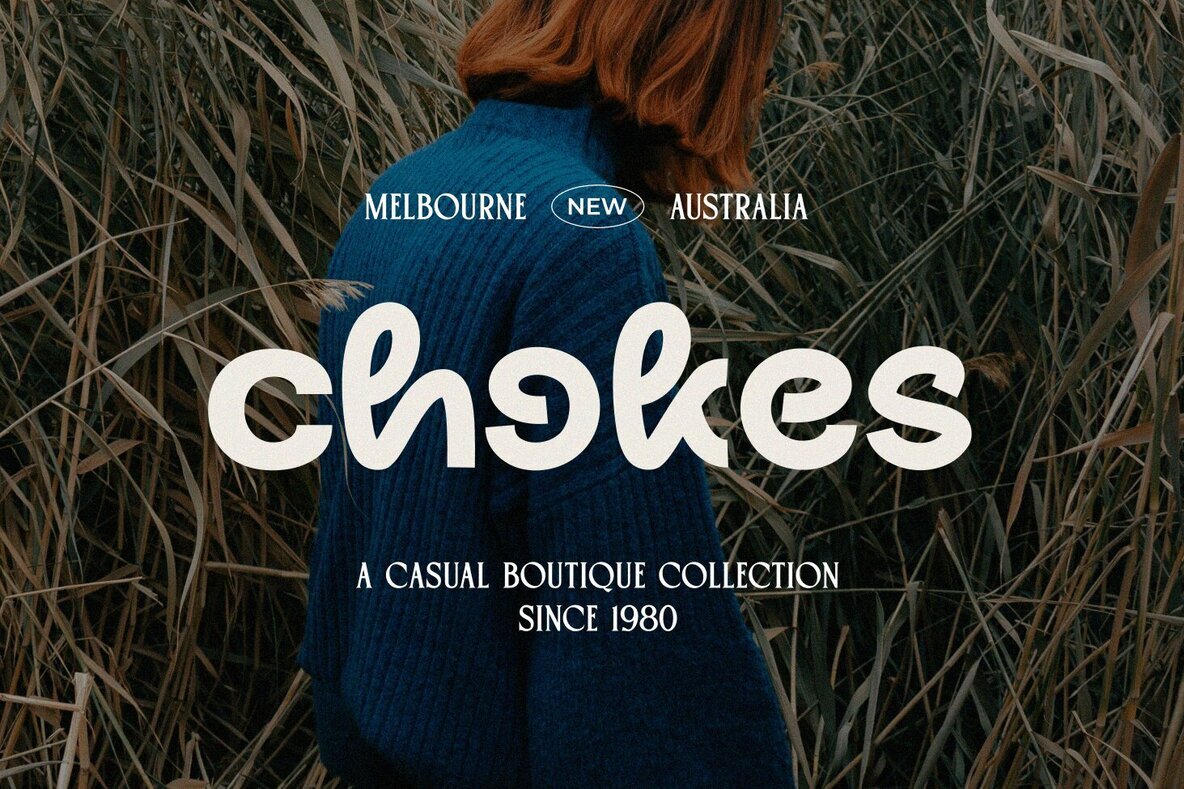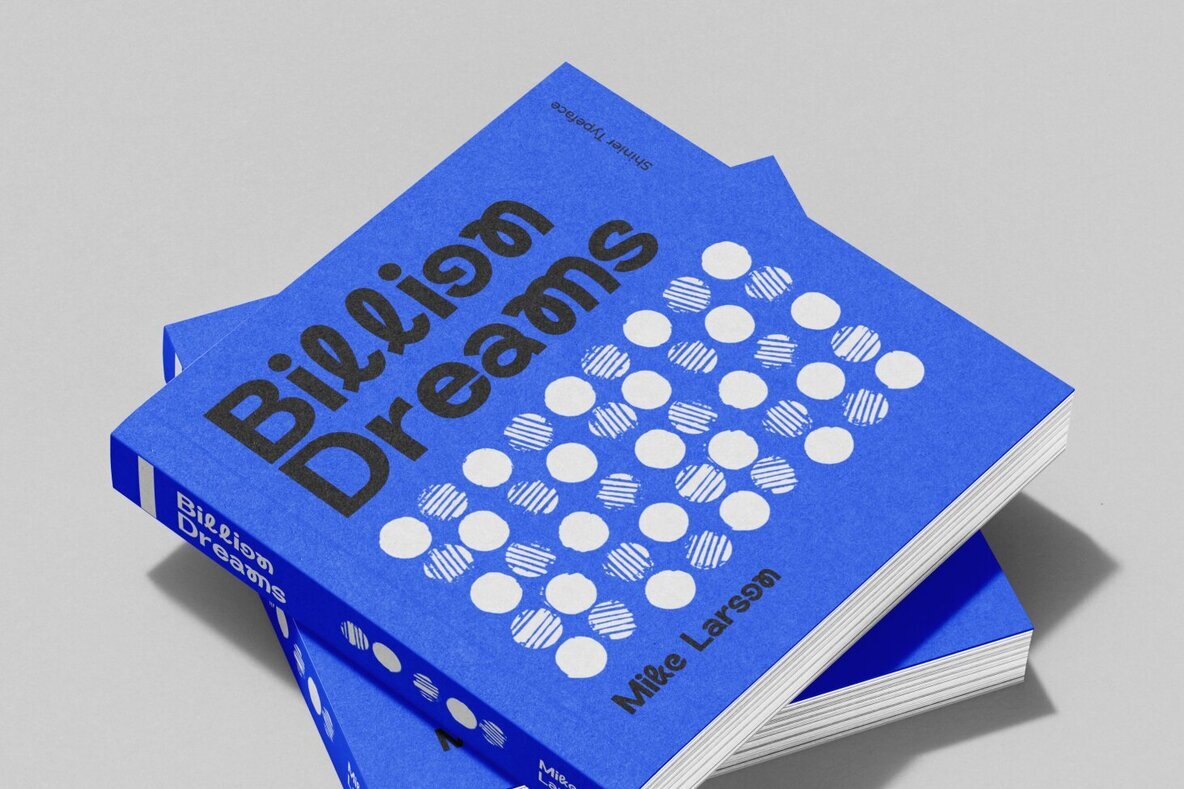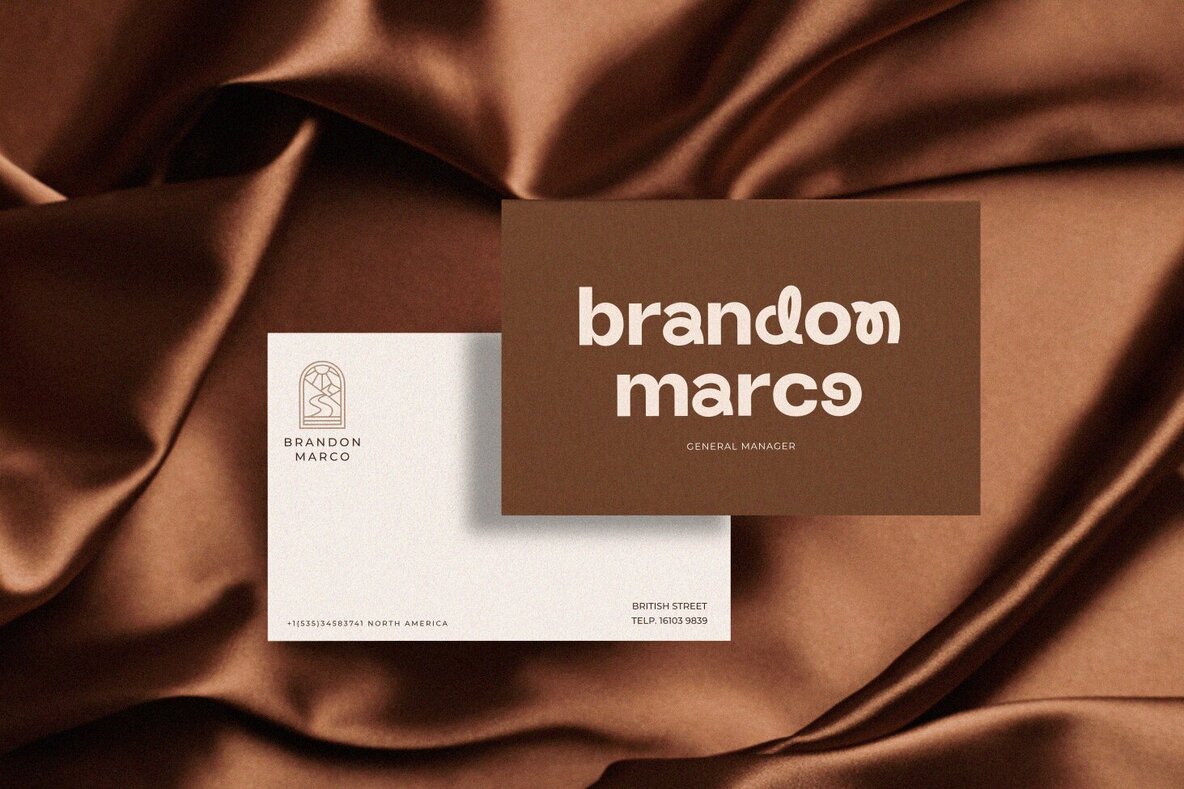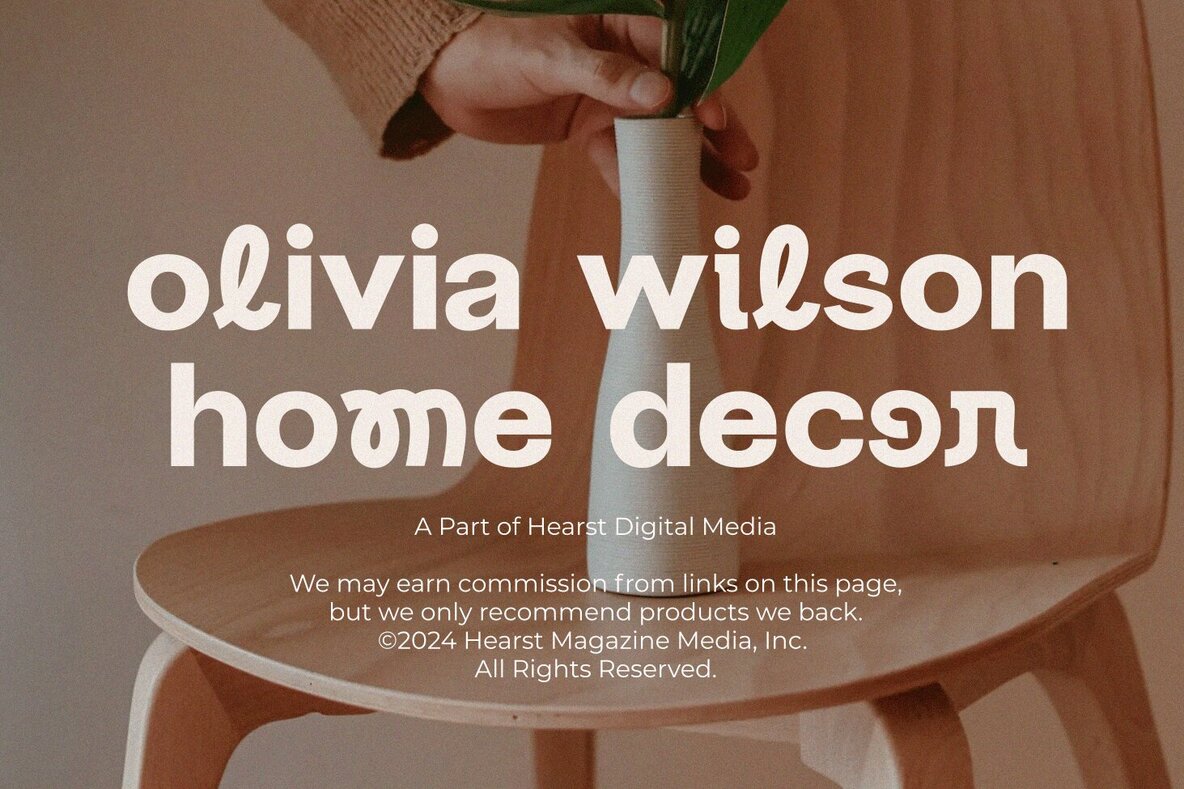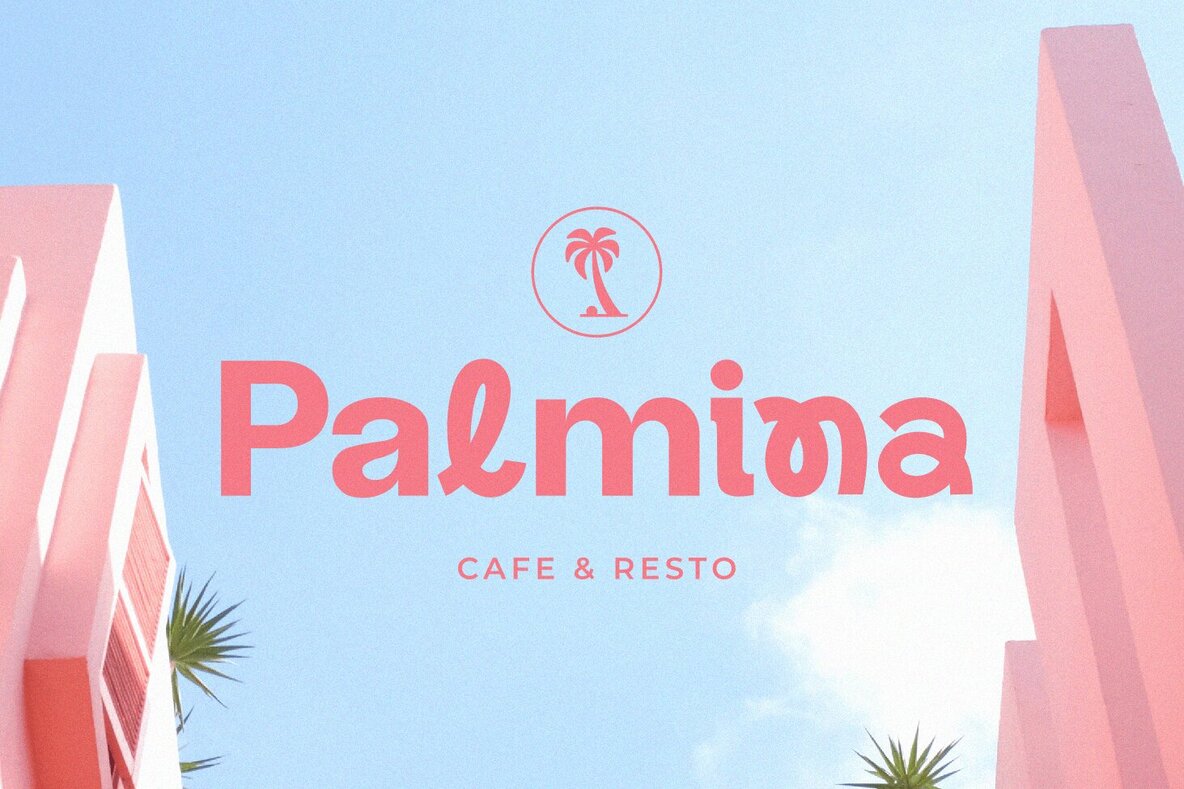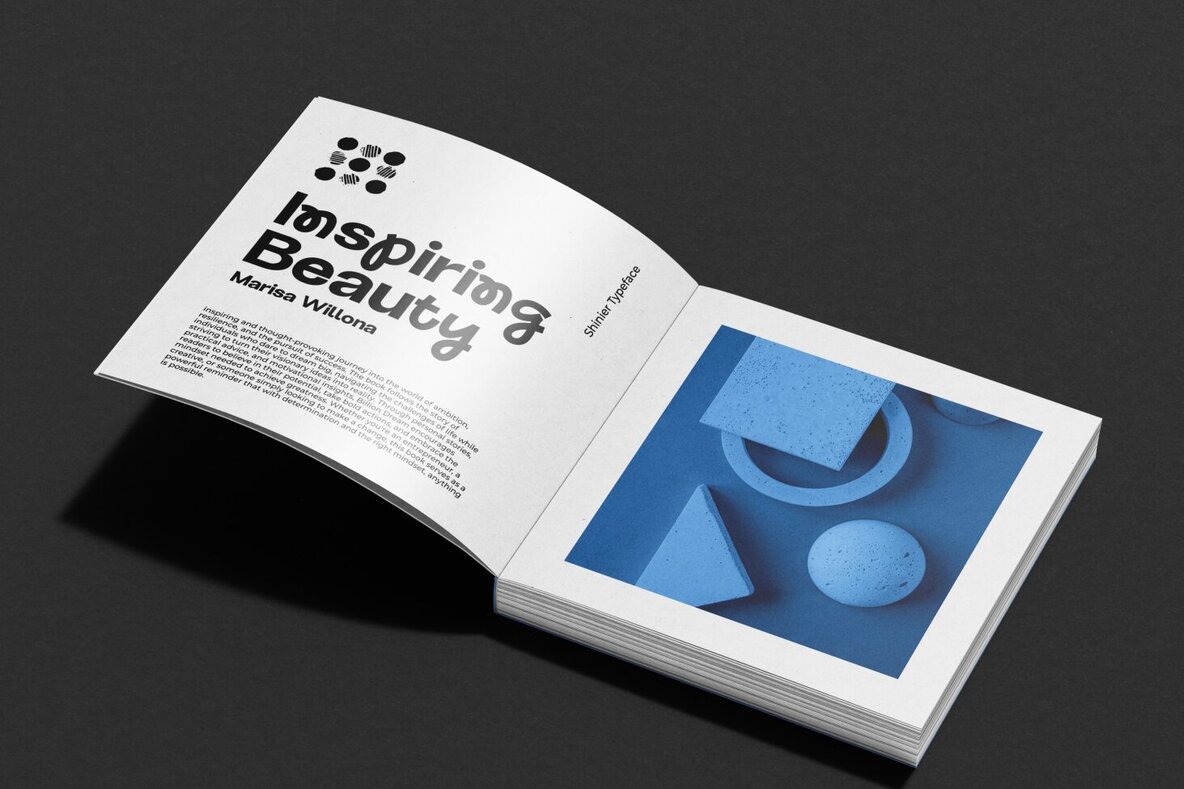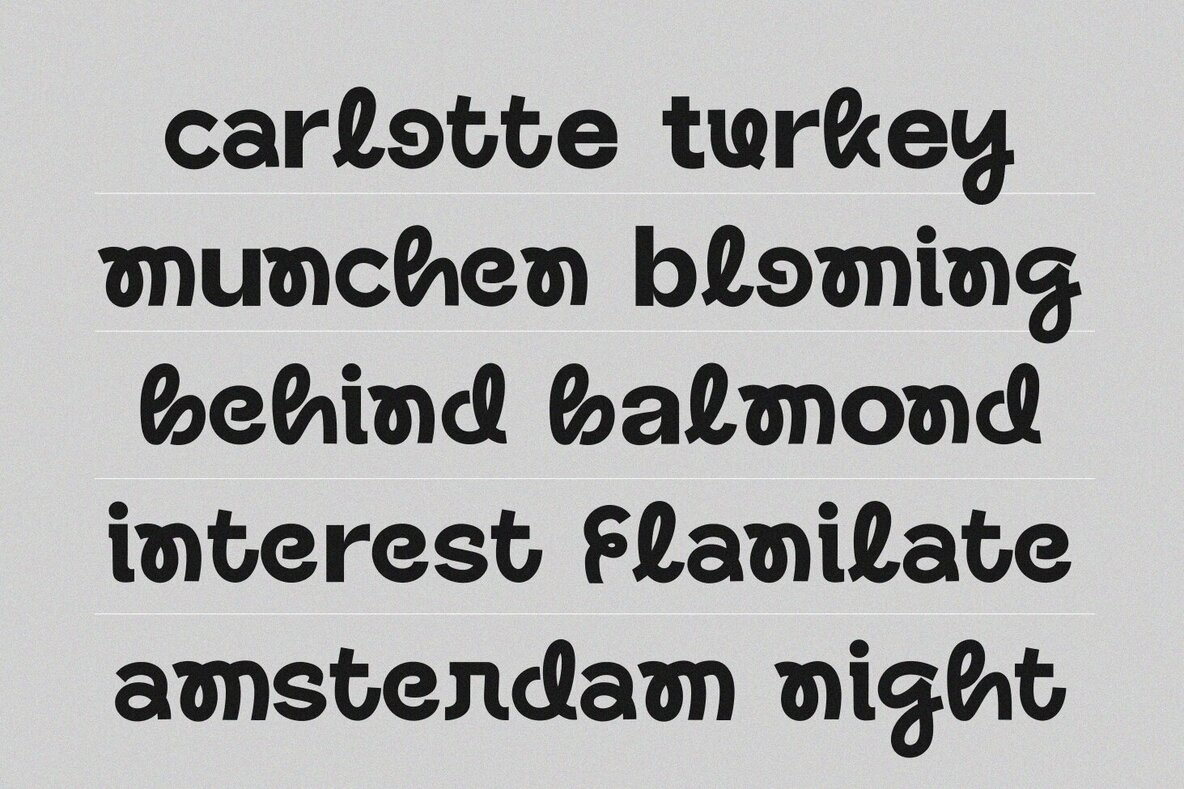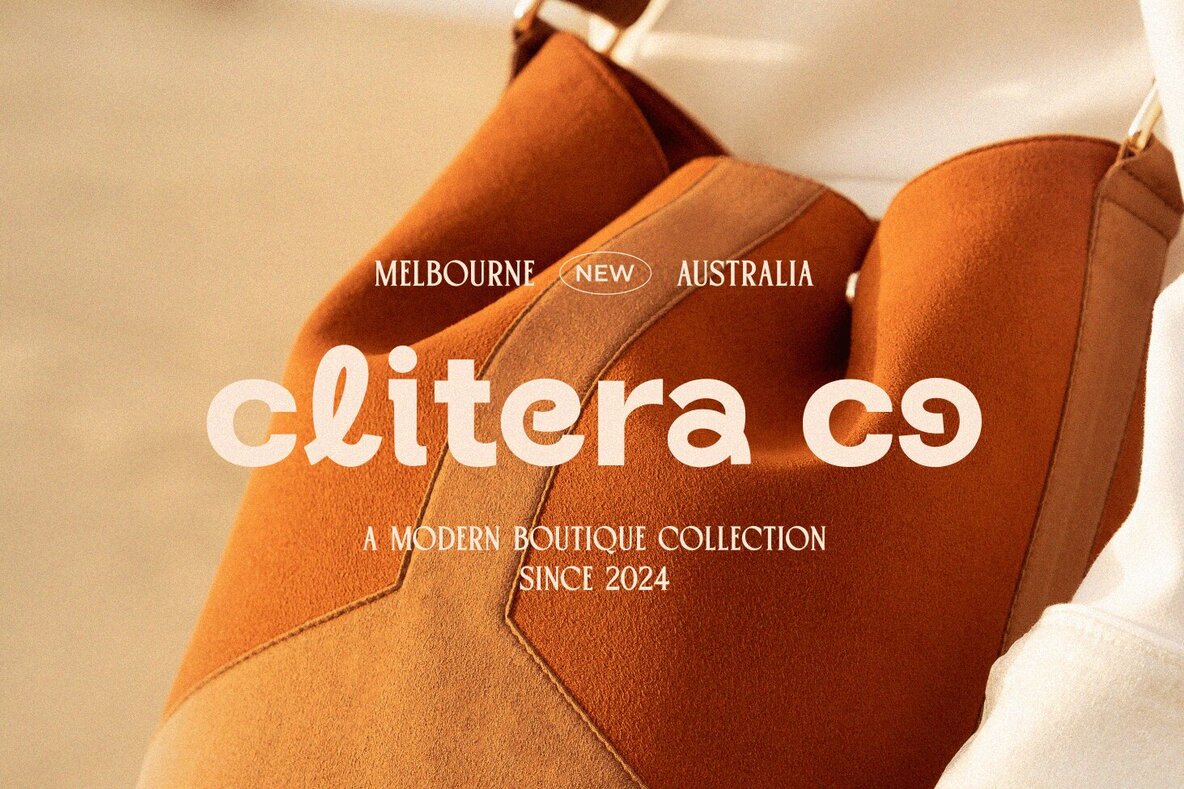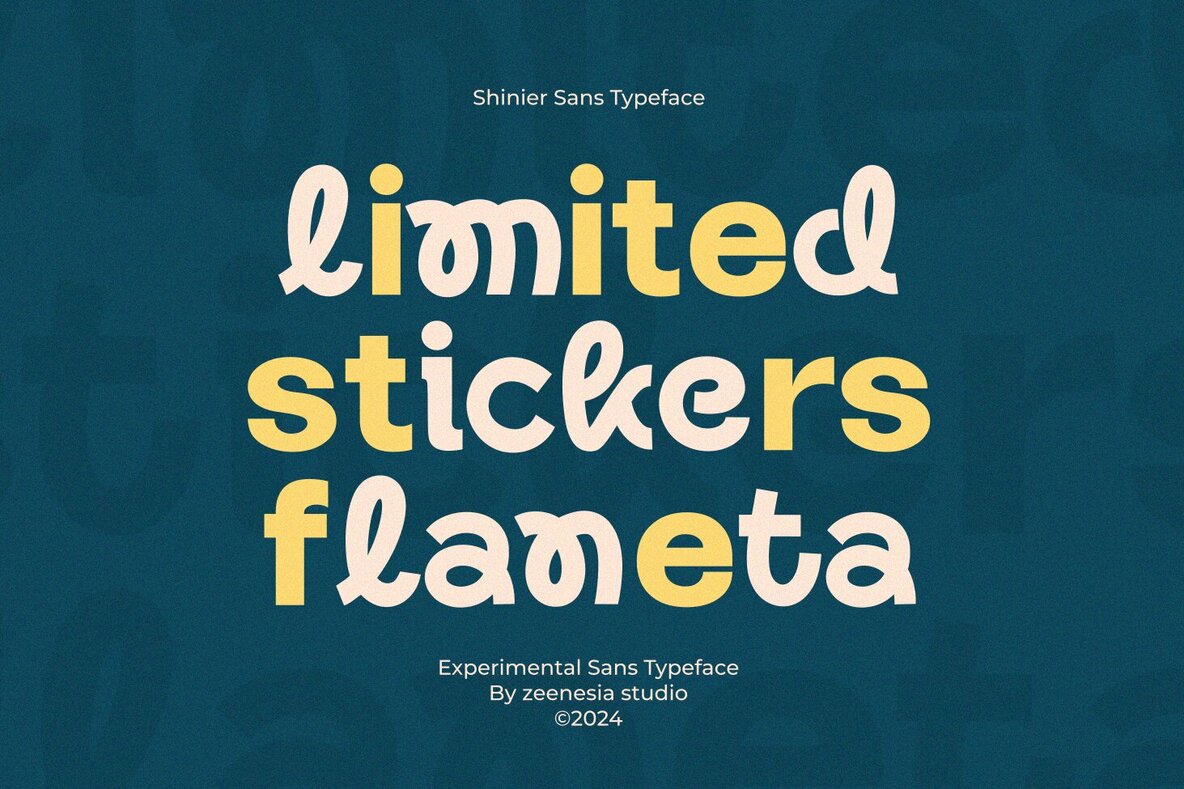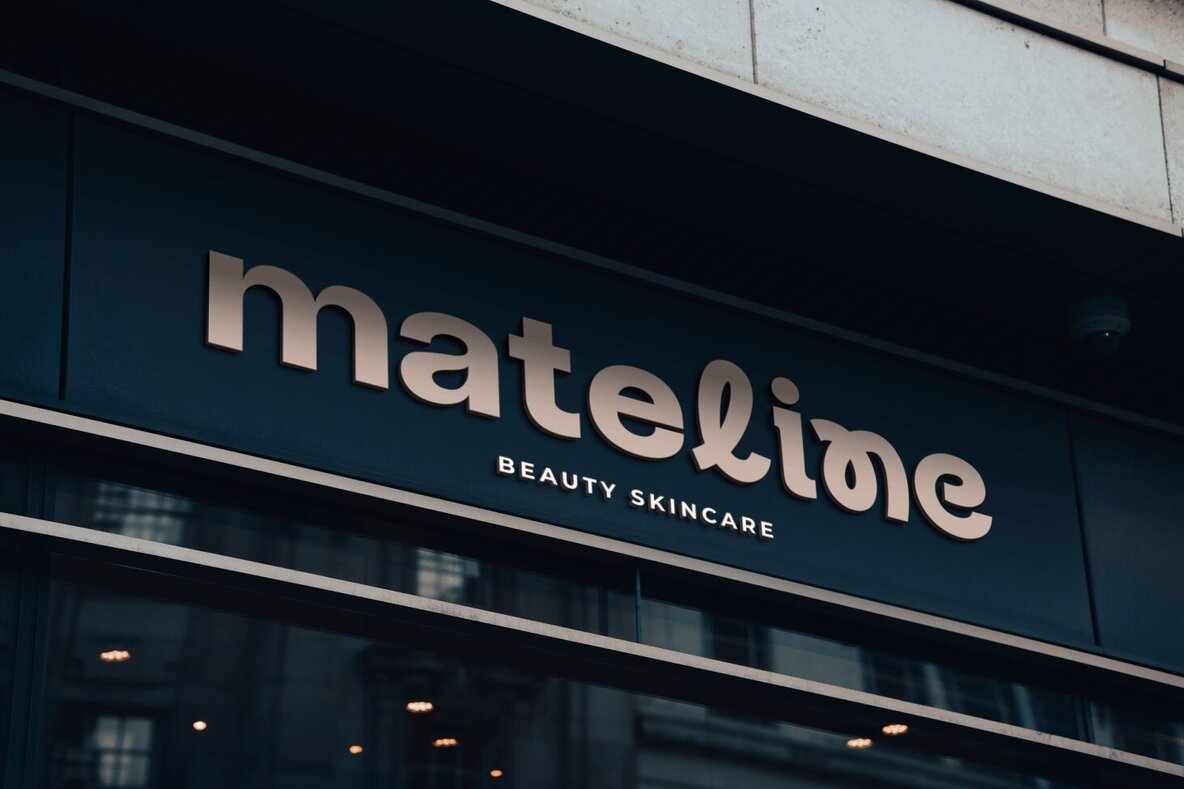
Shinier Font
Shinier Regular
Shinier is an experimental sans serif font . Its unique structure combines bold lines and unexpected curves, bringing a fresh perspective to modern typography. Each character is meticulously crafted, resulting in a font that balances between clarity and creative exploration. Perfectly suited for contemporary branding, editorial layouts, and digital media, Shinier captures attention with its unconventional design while maintaining readability. In addition to its modern aesthetic, Shinier offers a variety of stylistic alternatives, making it adaptable for diverse visual needs. Its versatility shines in both large display settings and smaller text applications, where its distinct characteristics add personality without overwhelming the reader. Shinier stands as an excellent choice for designers seeking a font that’s both experimental and functional, embodying innovation and elegance in every stroke. What’s Included: